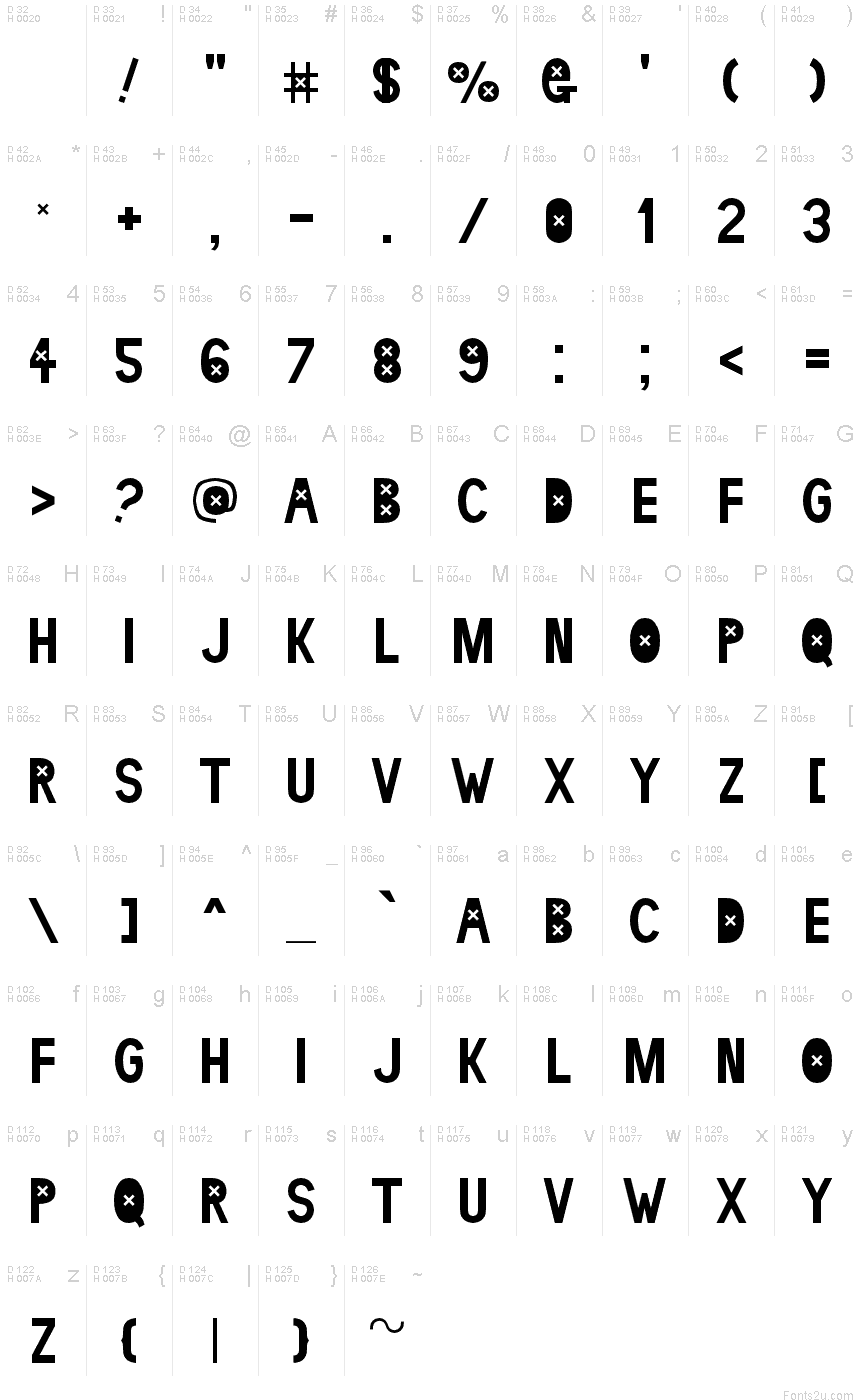
LDR KAET Regular
A remastered version of LDR HAET which had no kerning, incorrect spacing between characters and also low resolution of the whole shape. Now about 20% cooler.
“LDR HAET” was built with FontStruct